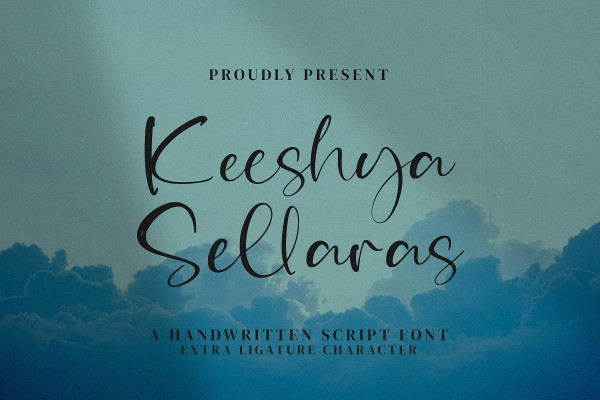
Keeshya Sellaras Font
Keeshya Sellaras Font – Handwritten Script Font, from Integritype Studio, is a premium Handwritten Script Font, perfect for any project like: logos, branding projects, homewares designs, product packaging, mugs, quotes, posters, shopping bags, t-shirts, covers books, business cards, invitation cards, greeting cards, labels, photography, watermarks, special events and all your other luxury projects that require a premium taste.